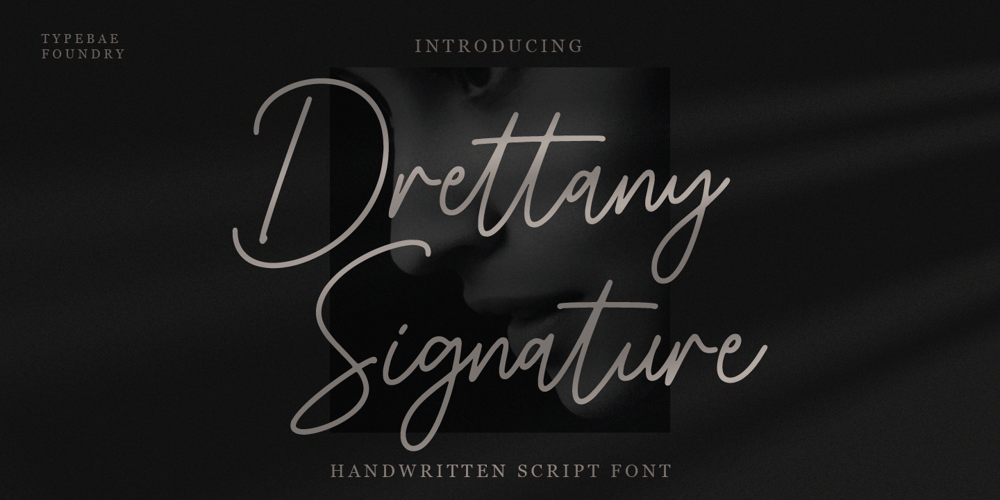
Drettany Signature Font Family was designed by Iqbal Pauji and published by Typebae. Drettany Signature contains 1 styles and family package options. Drettany Signature Font is a captivating handwritten signature script font that exudes elegance and sophistication. Its gracefully flowing curves and delicate strokes add a touch of refinement to any design project. Whether used for branding, invitations, or any creative endeavor, this font is sure to leave a lasting impression with its enchanting and distinctive charm.